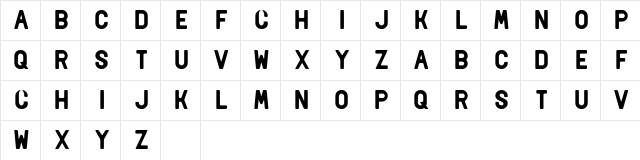
Delio-trial Regular
| Designer | Kevgusar |
Design Context for Delio-trial Typeface
Delio-trial offers clean, dependable letterforms without strong stylistic allegiance, making it a practical choice for designers who need flexibility.